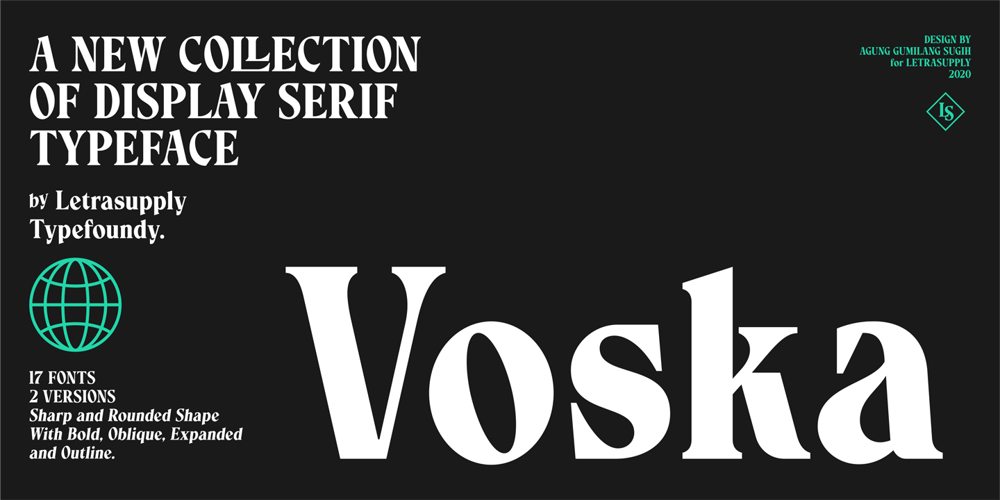
Voska Font Family was designed by Agung Gumilang Sugih and published by Letrasupply Typefoundry. Voska contains 17 styles and family package options. Voska font is a new collection of display serif typeface. Well designed font with high-contrast proportion, short serif and legit x-heights. Either sharp or rounded shape version both have classy, elegant yet explicit looks that works perfect mostly for branding, editorial purpose and more project on printing. Voska font contains alternate characters, ligatures and discretionary ligatures that give you an easy way to create awesome project.